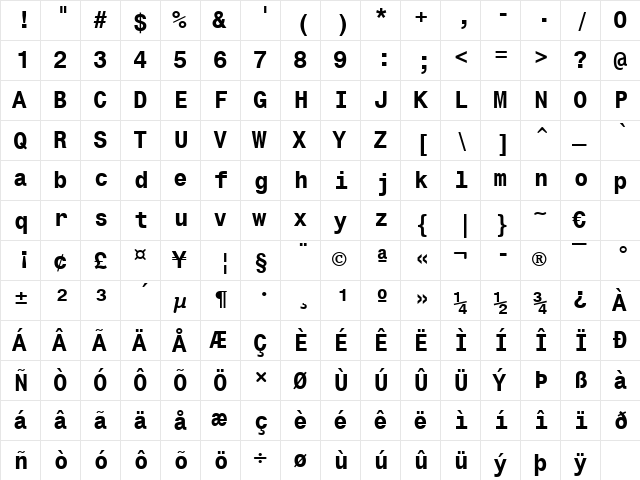
Monospac821 WGL4 BT Bold
Design Context for Monospac821 WGL4 BT Typeface
Monospac821 WGL4 BT uses fixed-width spacing throughout, giving it the structured, systematic character associated with coding environments and technical documentation. The heavy weight commands attention and anchors typographic hierarchies.
Pro Tip: Pair Monospac821 WGL4 BT with a proportional sans for UI contexts where code-style labels and regular body copy need to coexist.